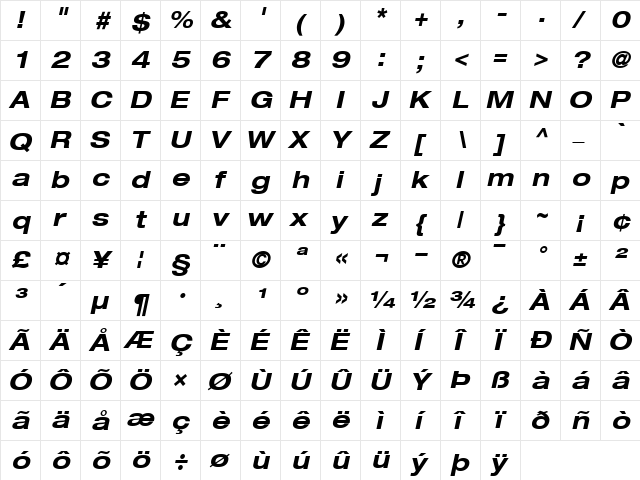
Helvetica73-Extended BoldItalic
Design Context for Helvetica73-Extended Typeface
Helvetica73-Extended is a composed and adaptable typeface that performs quietly and consistently across a wide range of design contexts. The slanted form adds forward momentum and visual energy. Its bold stroke weight gives it real presence on the page.
Pro Tip: Use Helvetica73-Extended for emphasis, pull quotes, and subheadings where its slanted energy can add rhythm to the layout.